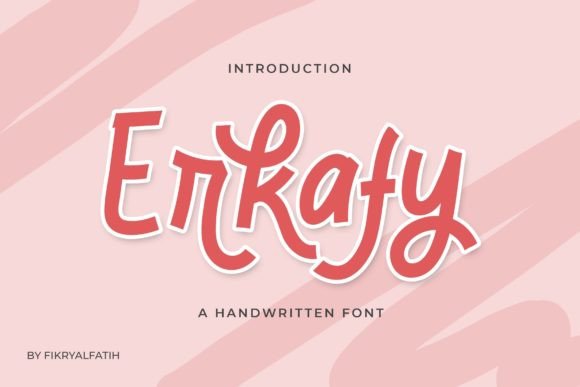
Meet Erkafy, a handwritten font that exudes charm and adorability, crafted with love to add a touch of cheer to all your creative endeavors. Perfect for branding projects, logos, and wedding designs, Erkafy's graceful strokes will elevate your creations, leaving a lasting impression.
Imagine your social media posts, advertisements, and product packaging adorned with Erkafy's captivating characters, capturing attention and sparking joy. Its versatility extends to label designs, photography, and watermarks, adding a touch of elegance to every project.
With Erkafy's PUA encoding, accessing the full range of glyphs and swashes is effortless, empowering you to express your creativity without limits. Let Erkafy be your font of choice for invitations and stationery, adding a personal touch that transforms ordinary moments into cherished memories.
Embrace Erkafy, the font that ignites imagination and adds a touch of delight to every project. Its cheerful spirit and endless possibilities will inspire you to create with passion and leave a trail of smiles along the way.